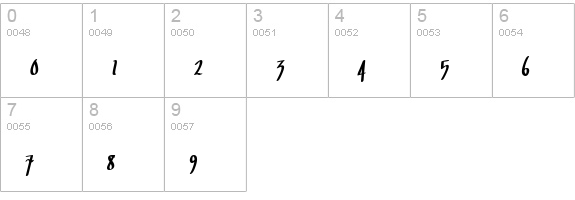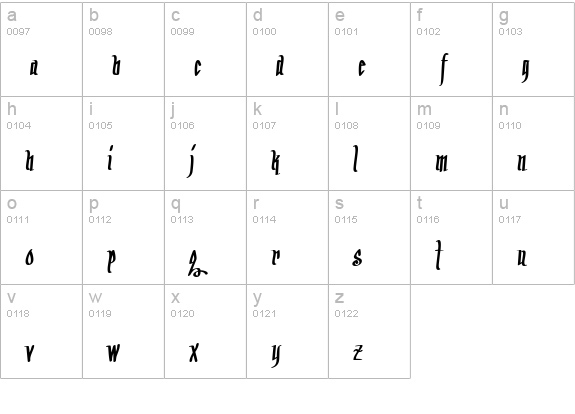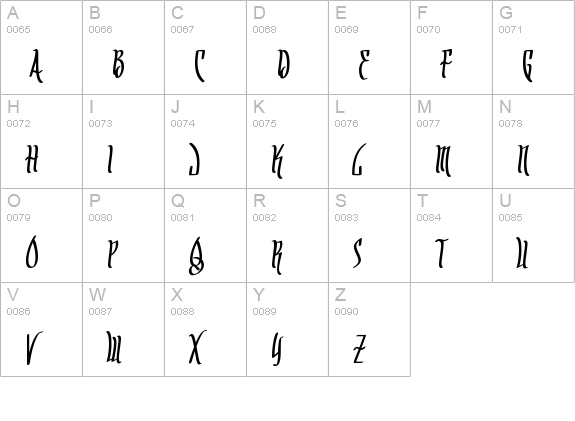
Arrr Matey BB Font Details
Ahoy there, matey! Allow me to introduce you to the magnificent Arrr Matey BB font, a treasure trove of typographic brilliance. This font is sure to set sail your creative endeavors and add a touch of nautical charm to your designs. Arrr Matey BB is a delightful display font that captures the essence of swashbuckling adventures on the high seas. With its bold and playful letterforms, it is perfect for creating eye-catching headlines, captivating logos, or even designing your very own pirate-themed party invitations. But what makes Arrr Matey BB even more appealing is the fact that it is completely and utterly free! That's right, me hearties, this font is freely available to download at FontsMarket.com, a treasure trove of fonts for all your design needs. So, whether you're a seasoned graphic designer or just a landlubber looking to add a touch of whimsy to your projects, Arrr Matey BB is here to help you sail away on a typographic adventure. With its wide range of characters, including alternate glyphs and ligatures, Arrr Matey BB offers endless possibilities for customization and creativity. So, unleash your inner pirate, and let this font be the wind in your sails as you embark on your design journey. So, what are ye waiting for, me hearties? Hoist the anchor and set sail for FontsMarket.com to download the Arrr Matey BB font today. It's time to bring a touch of swashbuckling excitement to your designs with this free, captivating font. Yo ho ho and a bottle of creativity awaits!